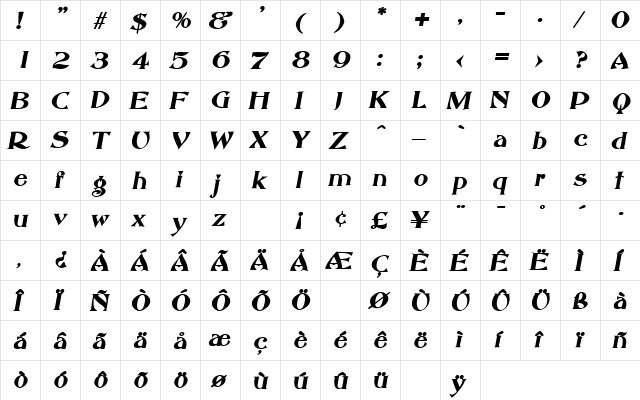
AbottOldStyle Bold Italic Font Preview
AbottOldStyle Bold Italic
Design Context for AbottOldStyle Typeface
AbottOldStyle carries the refined structure of traditional serif typography, with bracketed terminals and considered proportions that communicate credibility and craft. The slanted form adds forward momentum and visual energy. Its bold stroke weight gives it real presence on the page.
Pro Tip: Set AbottOldStyle with slightly loose tracking in headlines to let each letterform's detail read clearly at display sizes.